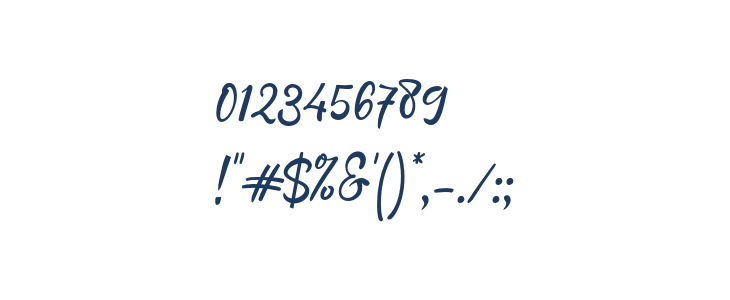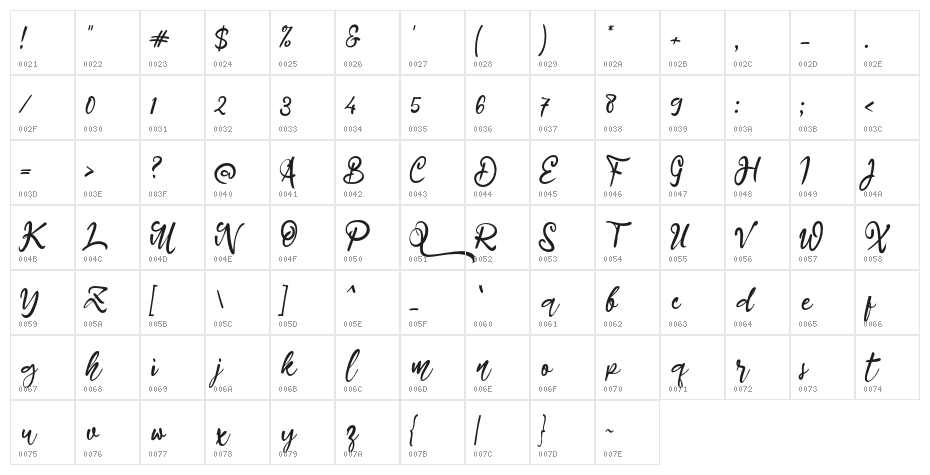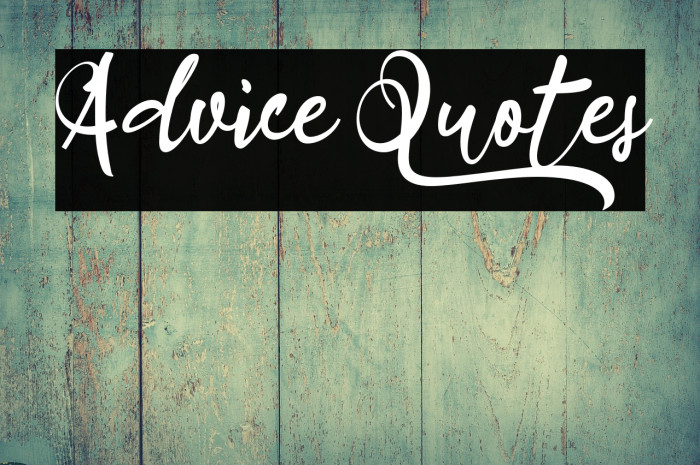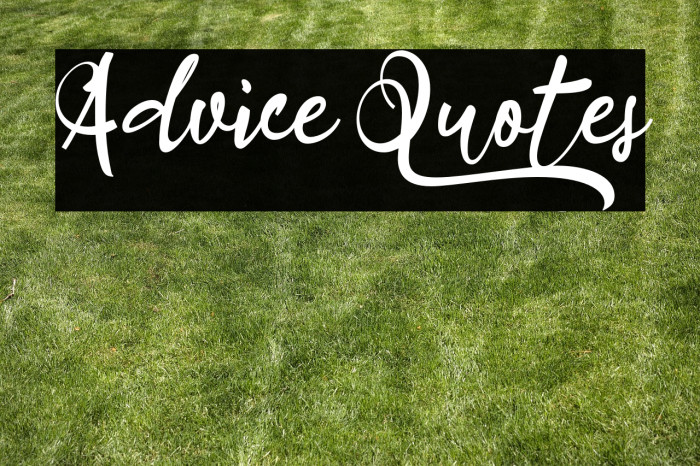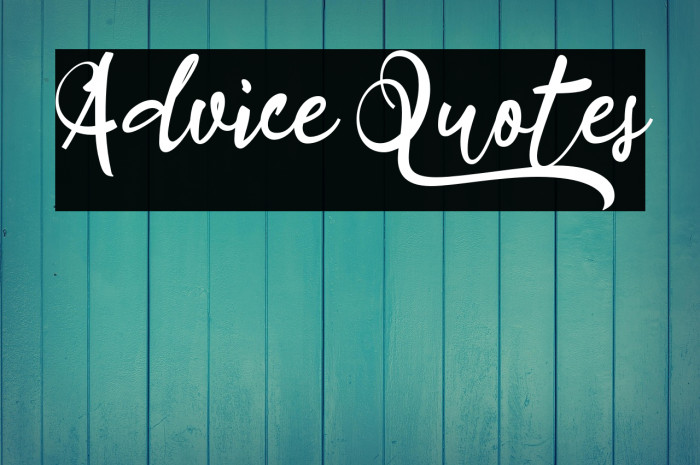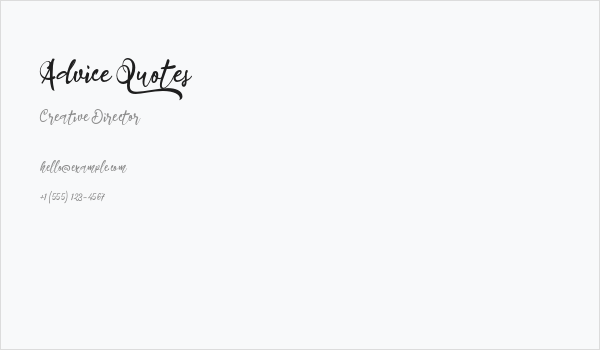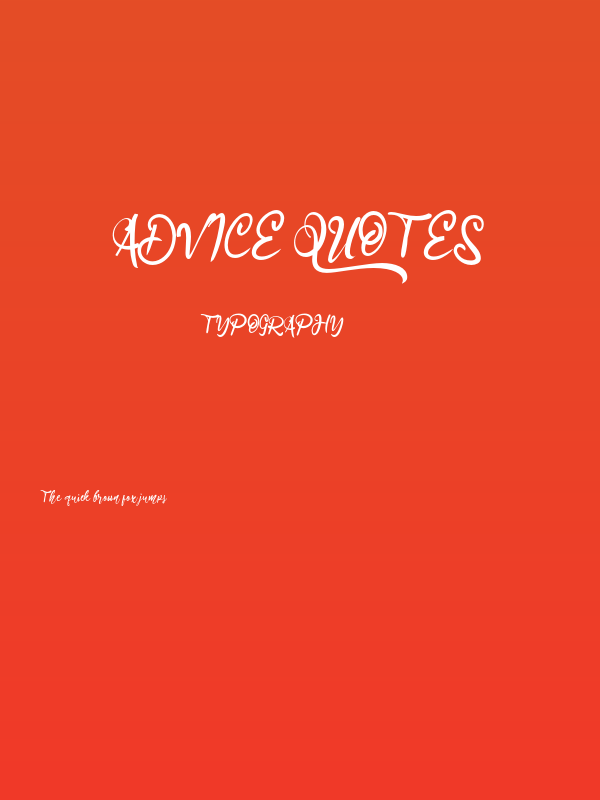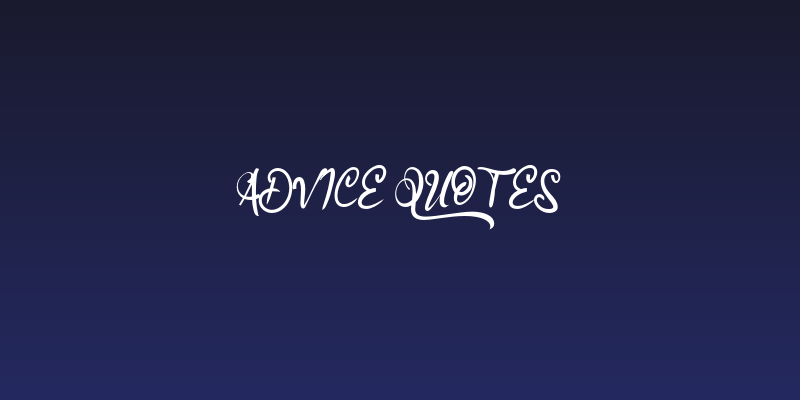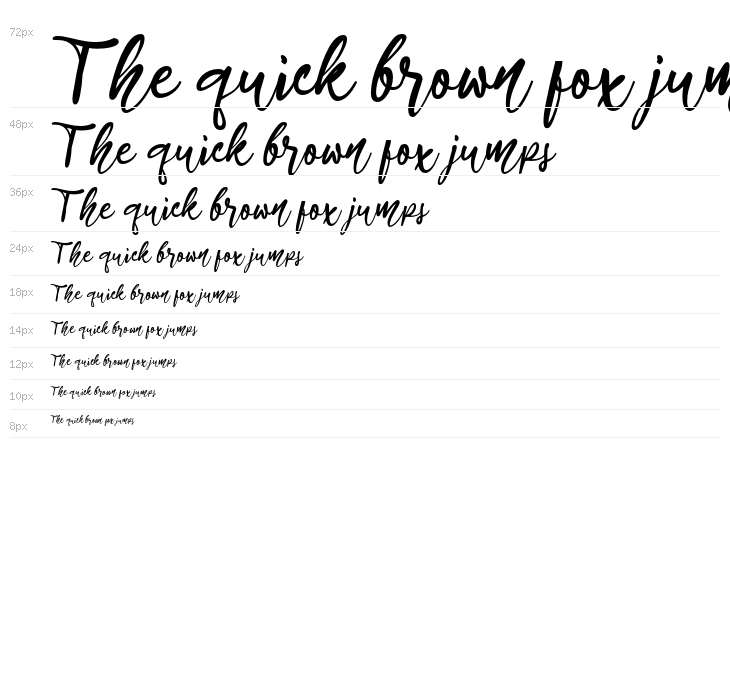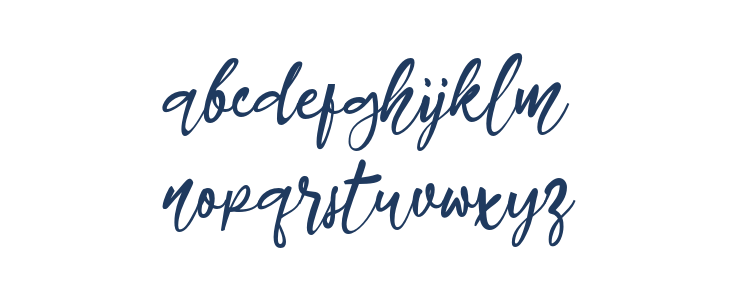
Advice Quotes Font
Advice Quotes Description
This font features a dynamic and expressive script style, characterized by its flowing, cursive letterforms. The strokes are bold and confident, with a slight slant that adds to its energetic appearance. The uppercase letters are particularly ornate, with sweeping curves and flourishes that give them a sense of movement. The lowercase letters maintain a cohesive look, with smooth connections between characters that enhance readability. Numbers and special characters are designed to match the overall aesthetic, ensuring consistency across all text elements. This font is ideal for projects that require a personal touch or a sense of elegance and flair.